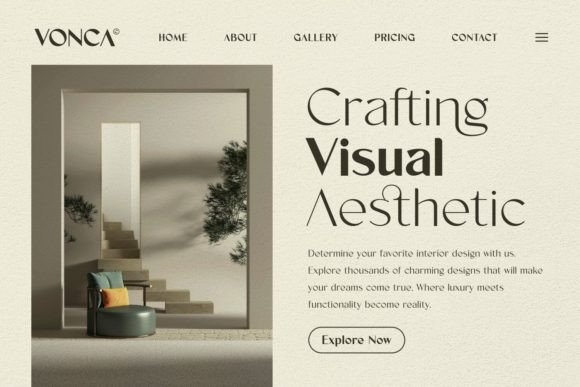
Vonca Font
Vonca is a modern minimalist font family that embodies simplicity, elegance, and contemporary design principles. It emphasizes clean lines, and geometric shapes, creating a sleek and efficient visual aesthetic. You can use this font in both modern and vintage designs. This font is suitable for trendy packaging label designs, unique desired logos and branding, poster designs, fashion, and many more.